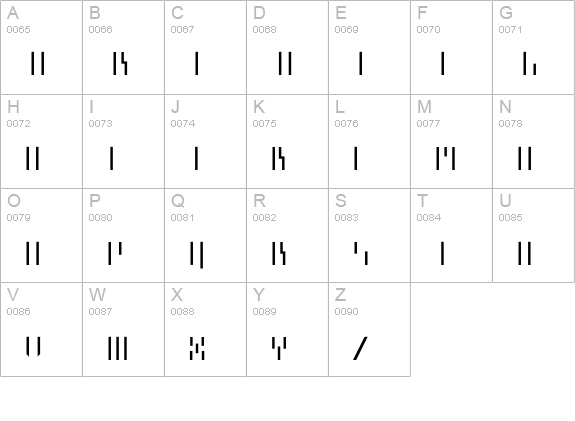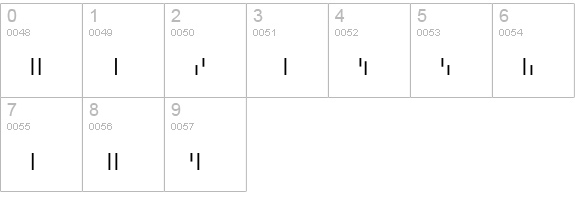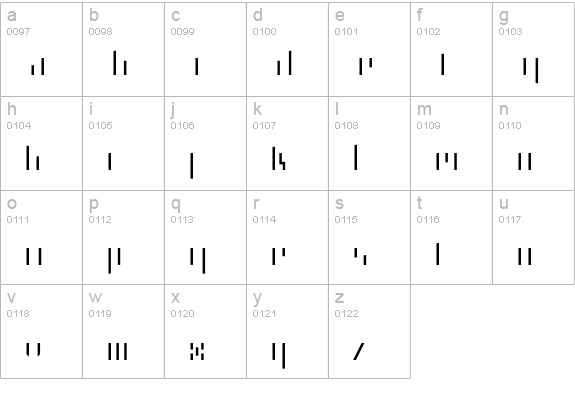
Minimum-BichroMediumVertical font is a sleek and modern typeface that exudes sophistication and elegance. With its clean lines and contemporary design, this font is perfect for a wide range of design projects, from branding to editorial design. The Minimum-BichroMediumVertical font strikes the perfect balance between minimalism and style, making it a versatile choice for any designer looking to make a statement. What's even better is that this font is available for free download at FontsMarket.com. So whether you're working on a personal project or a client's design, you can easily access this stylish font without any cost. Don't miss out on the opportunity to elevate your designs with the Minimum-BichroMediumVertical font - download it for free today at FontsMarket.com!